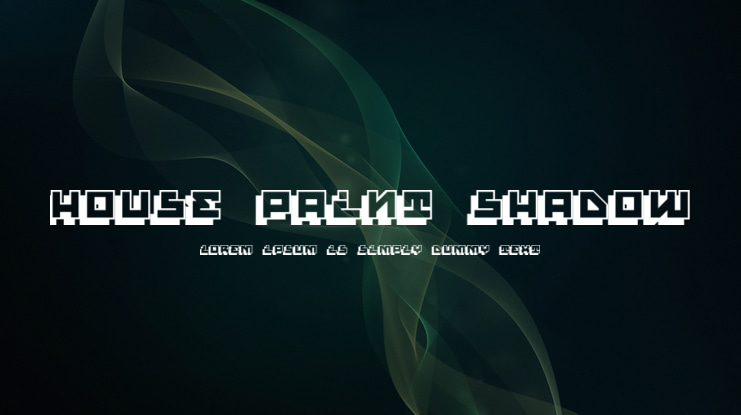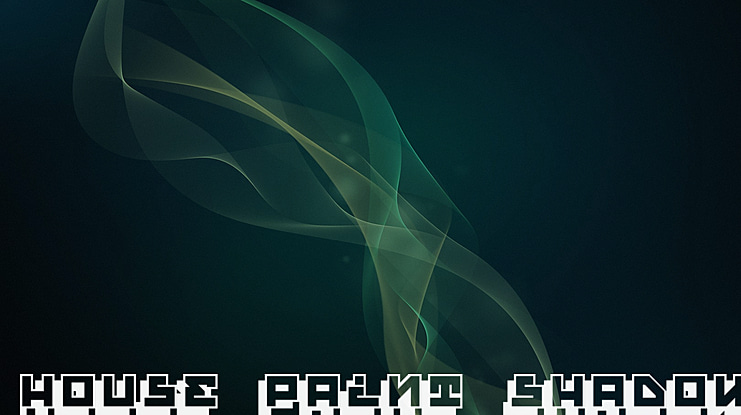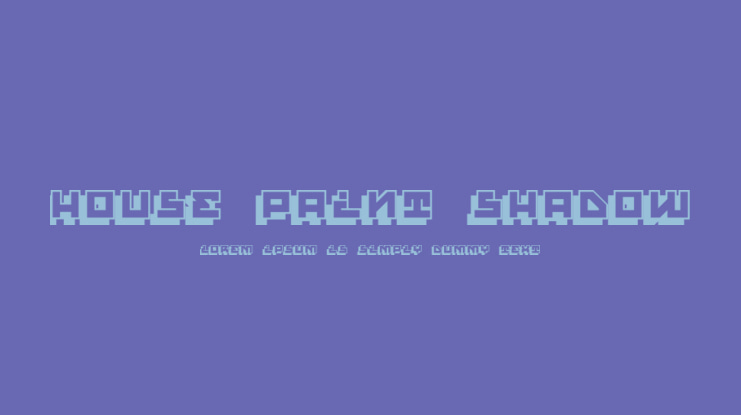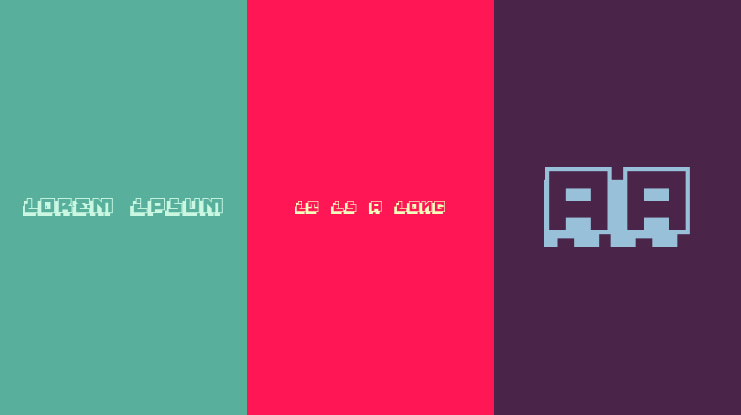
House Paint Shadow Font
This is a flat square house paint graffiti font with a floating shadow. Includes number set and extended latin character support!